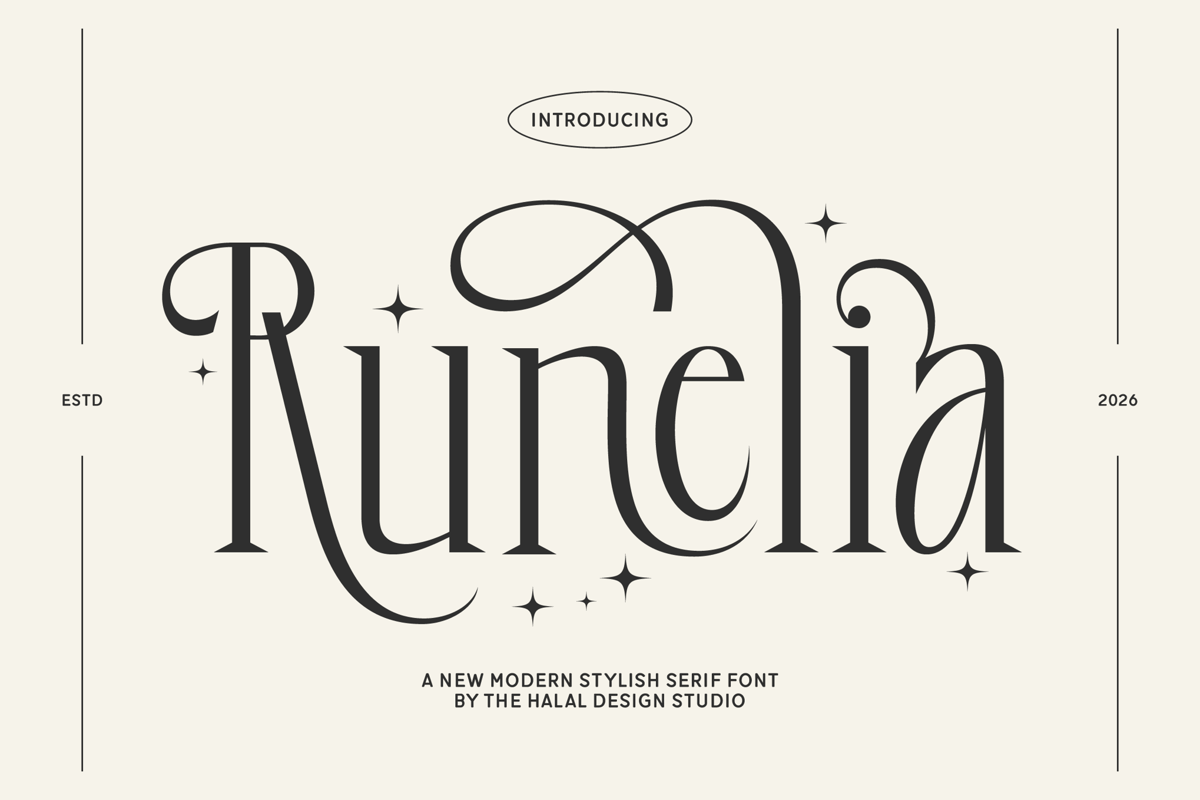
Runelia - Elegant Serif Font
Runelia is a luxurious modern serif typeface built for brands that demand elegance, sophistication, and timeless style.
Crafted with high-contrast strokes, refined curves, and graceful letterforms, Runelia strikes the perfect balance between classic sophistication and contemporary design. Whether you're working on luxury branding, fashion logos, editorial layouts, packaging, or invitations, this typeface delivers a polished, professional result every time.
Runelia includes ligatures and alternates for enhanced typographic flexibility, along with multilingual support — giving you the creative freedom to craft truly distinctive typography across a wide range of projects and languages.
- Ligatures & Alternates – Enhanced typographic flexibility